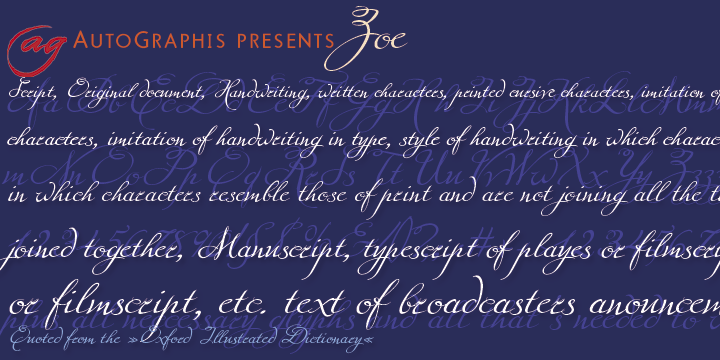
Zoe
Font Family by Autographis
Zoe is a hand-drawn script that has a very even flow and is readable down to very small sizes.
In big sizes it is elegant.